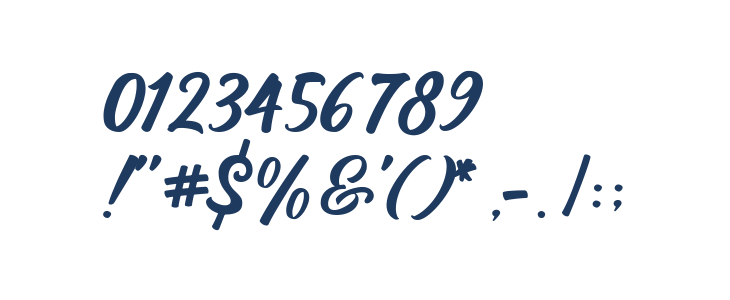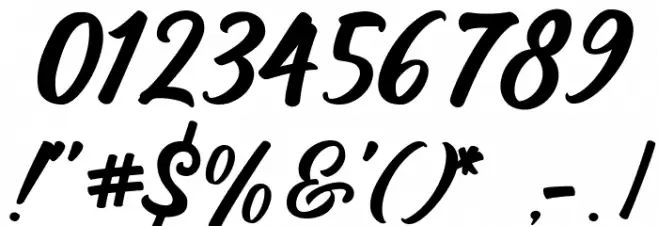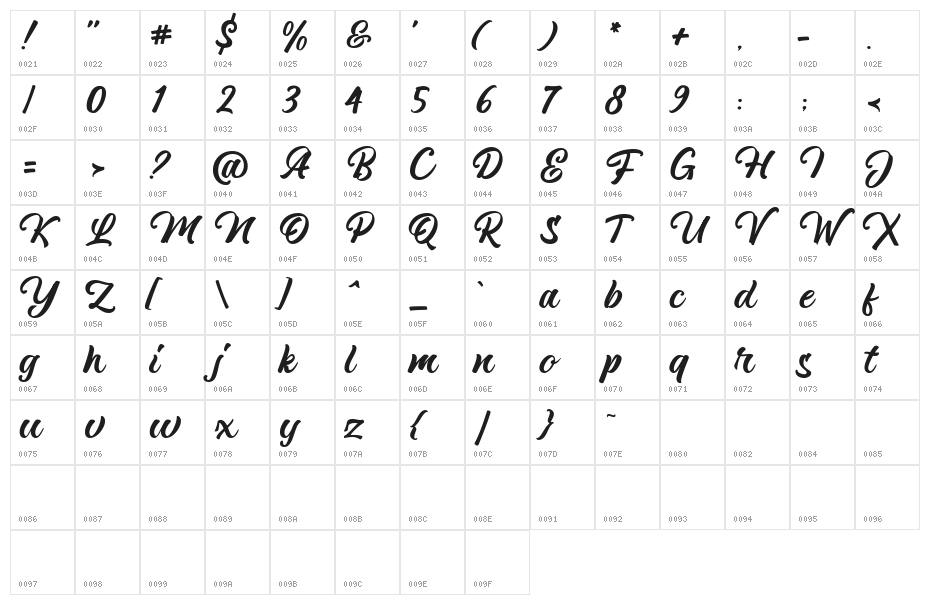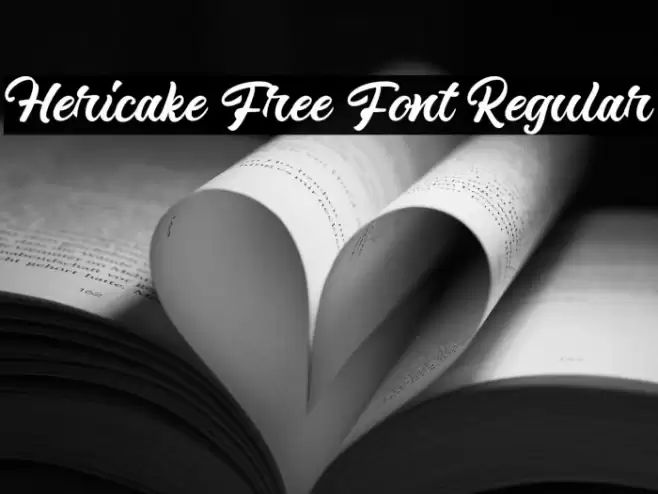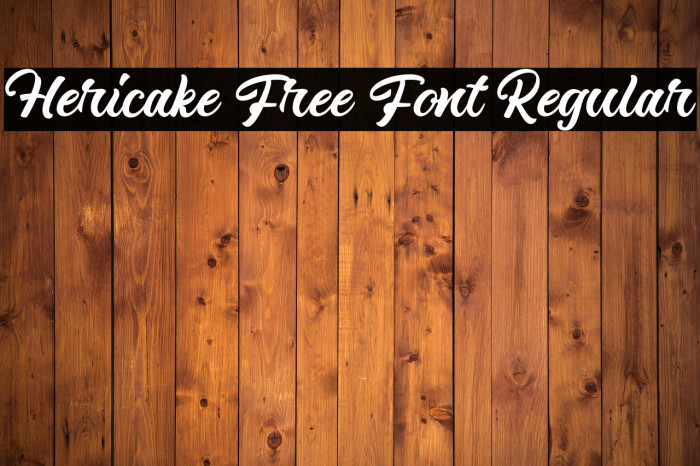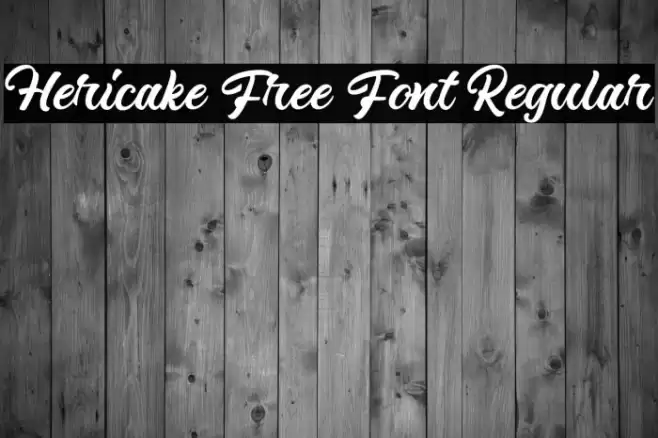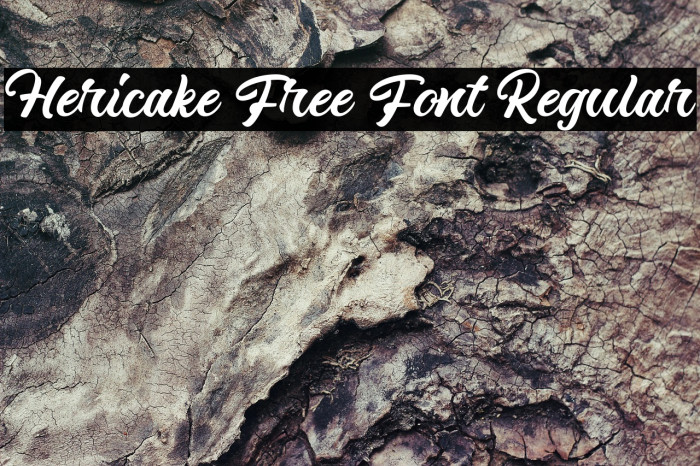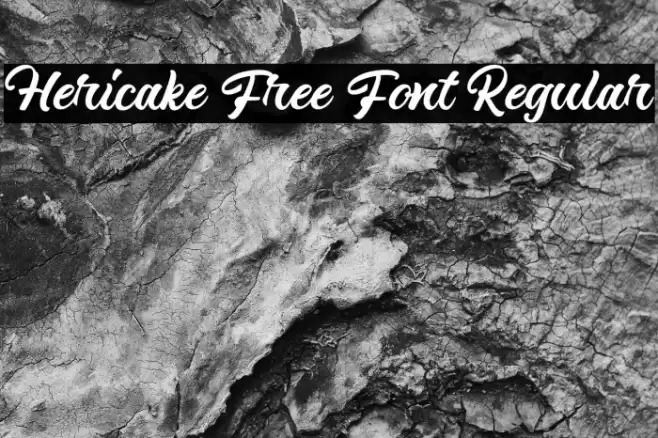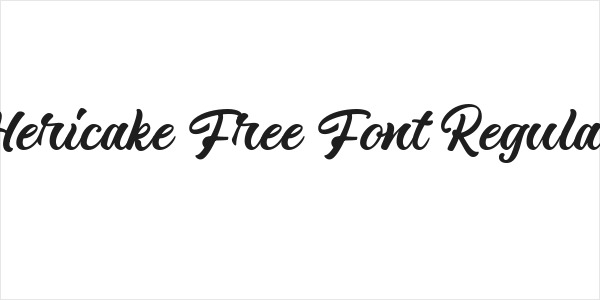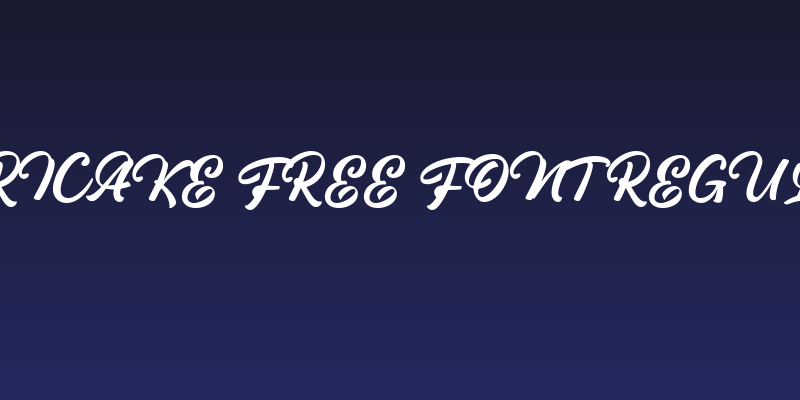
This font features a bold and expressive script style, characterized by its flowing, cursive letterforms. The uppercase letters exhibit a dynamic and elegant flair, with sweeping curves and loops that convey a sense of movement and grace. The lowercase letters maintain a consistent style, complementing the uppercase with their rounded and connected strokes. The numerals are equally bold, maintaining the script's fluidity and charm. Special characters are designed with the same attention to detail, ensuring a cohesive look across all glyphs. This font's overall appearance is both playful and sophisticated, making it suitable for a variety of creative applications.